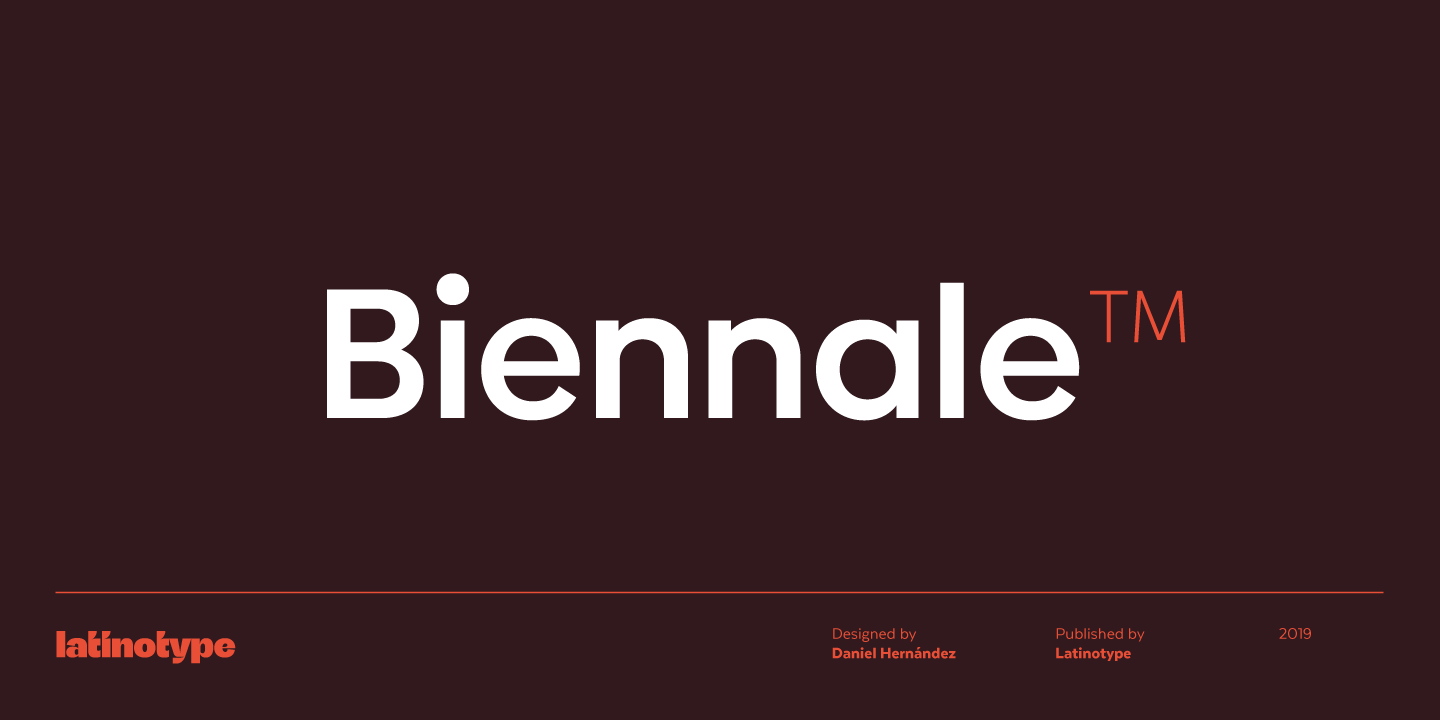
This geometric sans-serif typeface is perfect for headlines, branding, web design, posters, and social media graphics.
The Biennale Font is exciting because its bold, modern design with a large x-height and distinctive details creates unique, eye-catching visuals for any project.
Its font family includes Biennale Hair, Thin, Ultra Light, Light, Book, Regular, Medium, Semi Bold, Bold, Heavy, Black, and their respective italics, totaling 22 styles for versatile applications.
Looking for a font that blends modern geometry with standout style? Biennale Font Free Download is an ideal choice for designers seeking a versatile sans-serif typeface. Designed by Daniel Hernández and Rodrigo Fuenzalida, and published by Latinotype in 2019, this font family draws inspiration from old sign painters’ lettering, like Egyptian Sans, offering a bold character and high x-height. Perfect for both digital and print projects, the Biennale Font ensures readability and impact, making it a favorite for branding and editorial design.
The Biennale Font excels in applications requiring bold, modern typography. It’s a top choice for headlines in magazines, websites, or posters, where its clean lines and distinctive details shine. Branding projects, such as logos for tech startups or lifestyle brands, benefit from its strong, geometric aesthetic. Web designers use it for headers and UI elements, leveraging its @font-face support for seamless integration. Social media creators rely on its bold weights for Instagram posts, TikTok overlays, or YouTube thumbnails, boosting engagement. Its versatility also suits packaging and promotional materials.
What makes the Biennale Font Free Download so compelling is its ability to combine common sans-serif style with unique flair. With 417 characters supporting over 200 Latin-based languages, it’s ideal for global projects. OpenType features like ligatures and alternates enhance creative flexibility in tools like Adobe Illustrator or InDesign. Its 11 weights, from Hair to Heavy, plus matching italics, ensure versatility across sizes and mediums, from subtle body text to striking headlines.
The Biennale Font family includes Hair, Thin, Ultra Light, Light, Book, Regular, Medium, Semi Bold, Bold, Heavy, and Black, with italic variants for each, offering 22 styles. This extensive range allows designers to create cohesive, dynamic designs for diverse applications, from editorial layouts to digital interfaces.